For a company like Airbnb whose growth hasn’t depended on traditional marketing, its products are its brand. A Super Bowl commercial isn’t as important in spreading the word about Airbnb as the website people see when they first hear about the company or the app they use once they’re a customer. And yet today, apps and websites are more and more similar: Patterns are what makes the modern web usable. That means if you’re Airbnb and your products are now your marketing, and your products have to adhere to the mores of modern web design, there are fewer ways than ever before to set yourself apart.
In this new world, fonts have to carry a greater burden. They have to tell your brand story, in ways that scale up to the size of a massive billboard. And, at the same time, they have to work as a label on a tiny UI button. Two years ago, Airbnb embarked on a quest to solve that challenge with its type design partner, the legendary foundry Dalton Maag. The resulting typeface, called Cereal, hits the world today across Airbnb’s web properties and app. Though it’s currently limited to 12 languages using the Latinate alphabet, the plan is to extend the family to 25 languages, from Russian to Chinese, in the next two years.
Even if you don’t care about fonts, Cereal is a useful example of how an organization’s broader challenges reflect themselves in the details–and how for the details to be right, the organization itself has to change. “Typographic systems are the key to any design, and it’s become more important to create a font that supports all your touchpoints in a clearer way,” says Alex Schleifer, Airbnb’s head of design. “That’s why you’re going to see a lot more organizations thinking about it.”
Dalton Maag usually starts its design process with a series of workshops to uncover the emotional qualities it’s trying to express. “Those end up being the hardest conversations to have, because people’s backgrounds and expectations can be so different,” explains Tom Foley, a creative director with the foundry. Airbnb was unusually self-assured of its own brand; what emerged was a desire for something clean, but with enough quirk to exude friendliness.
The “a” is always the most characterful letterform, simply because of its curves and joins. So to design the “a,” Dalton Maag took Airbnb’s logo, the so-called “Belo,” as its starting point. One unusual quality to the Belo is that it can be drawn with a single stroke, like a piece of calligraphy. Maag carried that over by creating an “a” that looked as if it’s drawn by a single stroke as well, thanks to details such as the stem, which pinches at its endpoints like a brushstroke. That calligraphic character was then translated to other letterforms, first the “B” then the “D.”
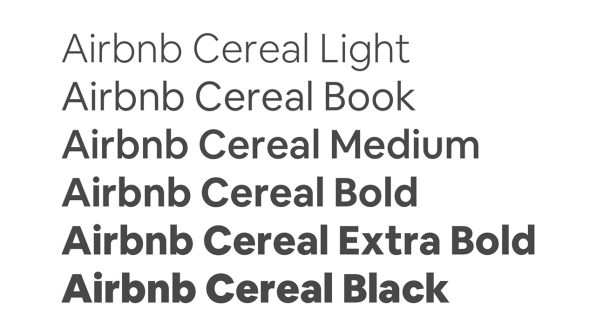
But the most painstaking part of the design sprung from the challenge of creating a single font family that would encompass two competing uses: a lighter font for UI, and a heavier one for display. “Our mantra was, ‘From billboard to button,'” says Schleifer. Typically, only a small portion of a modern font family is drawn by a human: Just the lightest and heaviest weights. All the in-between weights are extrapolated using type-design software, simply because it’s exponentially more labor efficient. Thus, a key skill in modern typography is knowing how to draw the extreme weights in a way that the intermediate ones can be easily extrapolated. (Type nerds: The emerging technology behind variable fonts, which makes it possible to generate intermediate weights on demand in a web browser, is only possible now because type design algorithms have become so tidy and efficient.)
Yet for all the work that type design software can do, it has limitations. It typically doesn’t have to deal with master fonts spanning so much variation. Type design software can thus be prone to generating middleweights that may be a Franken-font mash-up. “The interpolation will inherit qualities from both extremes,” says Foley. Dalton Maag’s solution was to draw a third master font right in the middle that had Goldilocks characteristics: both narrow and bold in just the right balance, helping the algorithm more fluidly translate between all the other weights.
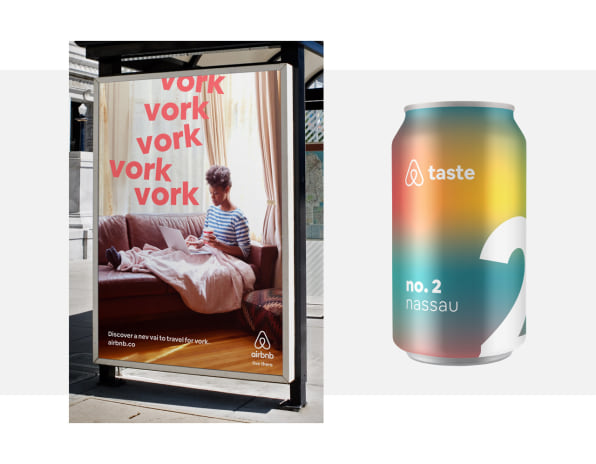
Business People, Read Here
Schleifer sees the Cereal project, and how it blends brand and product considerations, as a microcosm of the way the modern design practice needs to change. Where almost all companies have brand designers and product designers that might come into contact only at the holiday party, Airbnb now blends its teams. Most projects have both a product design lead and a brand design lead. “We’re trying to blend those two creative strategies into one,” says Schliefer. “We think that’s a powerful advantage as the product experience and the content all become one thing. You shouldn’t notice the gaps.”
As he points out, 20th-century marketing separated the conception of a product from the marketing of it: One group would invent, and another group would sell. That world spawned advertising dynasties in the 50 years that followed the Mad Men era. Today, Schleifer argues, the boundary between making and selling shouldn’t exist. “Our own website is our largest marketing site,” he explains. “If you’re mission-led, marketing becomes something different. There’s not a lot of difference between someting we post on Instagram and the experience of our product. The more assistance you build to support that, from how you set up teams to how you run creative meetings, the better you’ll be.”